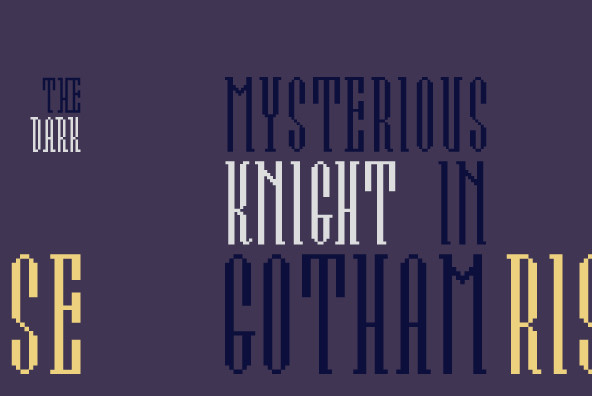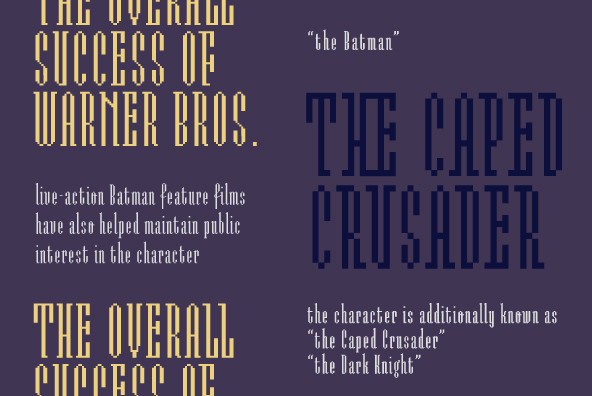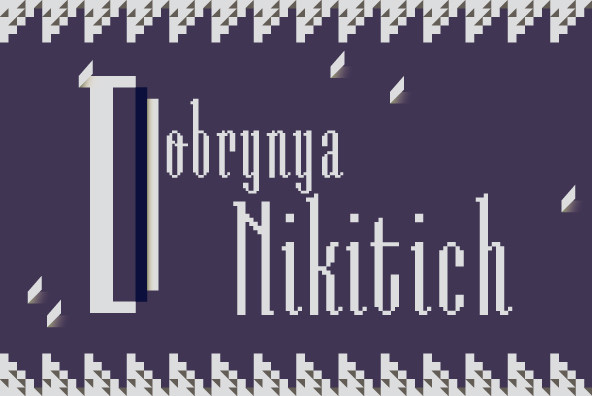
Tale is an experiment to convert the script-style calligraphy into bitmap format. The two variants have the same dimensions, but (as the naming suggests), Forty has double amount of pixels in it when compared to Twenty.
Tale is an experiment to convert the script-style calligraphy into bitmap format. The two variants have the same dimensions, but (as the naming suggests), Forty has double amount of pixels in it when compared to Twenty. Both variants have hand made bitmaps to compliment these correlating point sizes, and you can always get the appropriate bitmaps by multiplying by two.